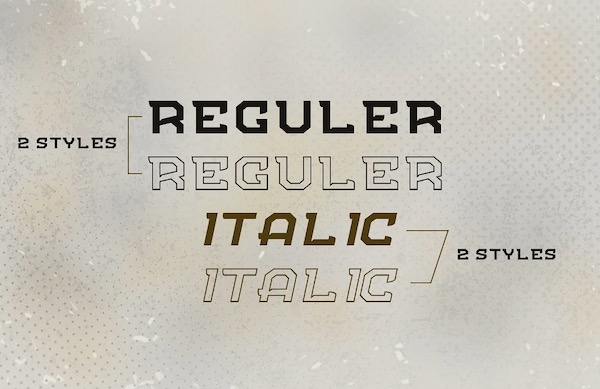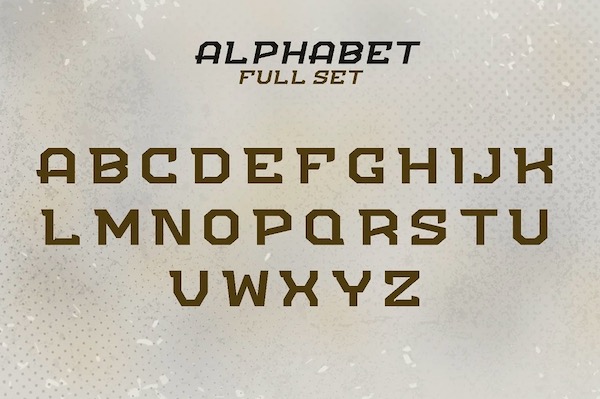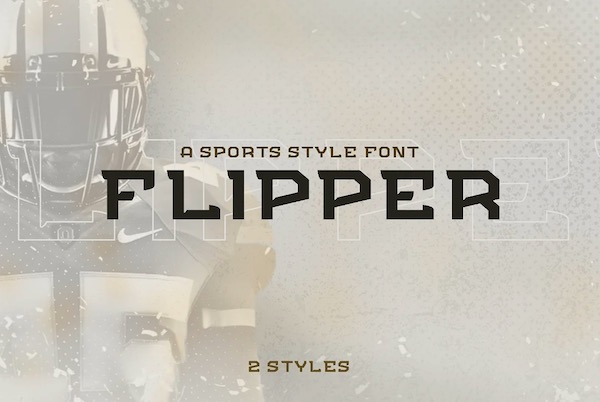
Introducing FLIPPER Display modern font that was created and shared by Haws.std. This is our new item that is suitable for your branding logo or community logo. Besides, this basic font has almost other normal features for your design projects.
FLIPPER Display Font